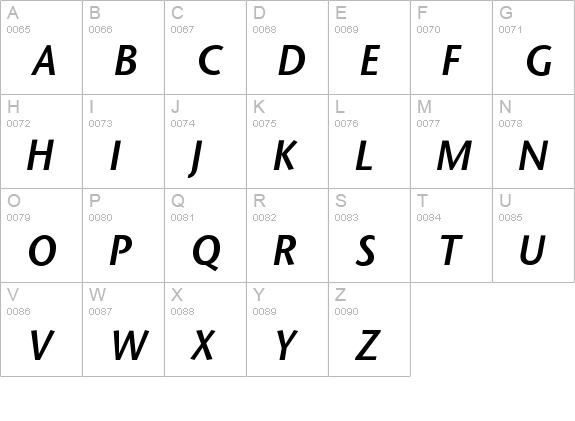
StoneSansSemiBoldItalic Font Details
StoneSansSemiBoldItalic is a modern and stylish font that exudes elegance and sophistication. With its bold and italic design, this typeface is perfect for adding a touch of flair to your projects. The sleek lines and sharp angles of StoneSansSemiBoldItalic make it versatile and suitable for a wide range of design applications, from logos to posters to websites. What sets StoneSansSemiBoldItalic apart is not only its design but also its accessibility. This font is freely available to download at FontsMarket.com, making it easy for designers and creators to incorporate it into their work without any hassle. Whether you're working on a personal project or a professional assignment, StoneSansSemiBoldItalic is sure to elevate your designs and leave a lasting impression.